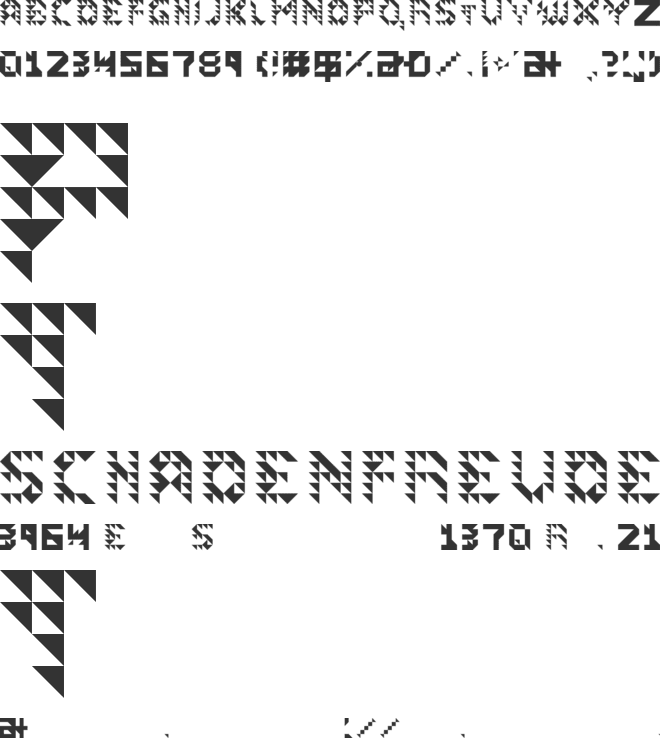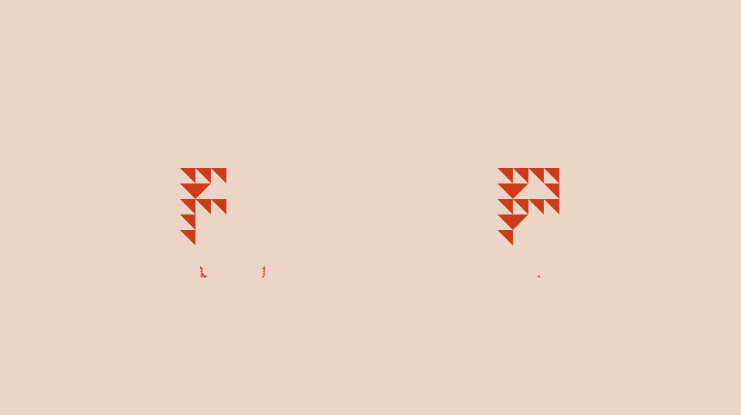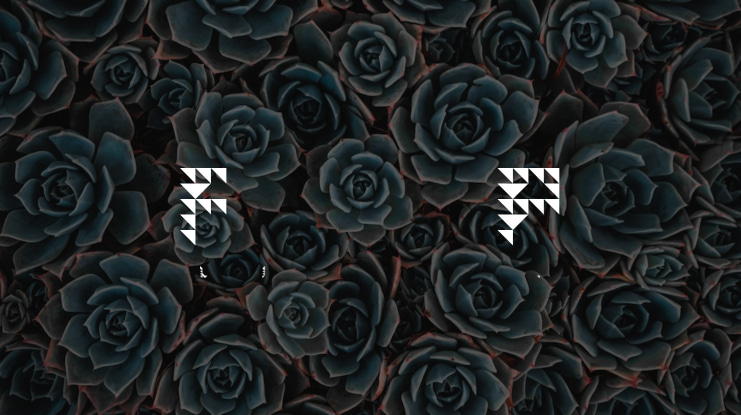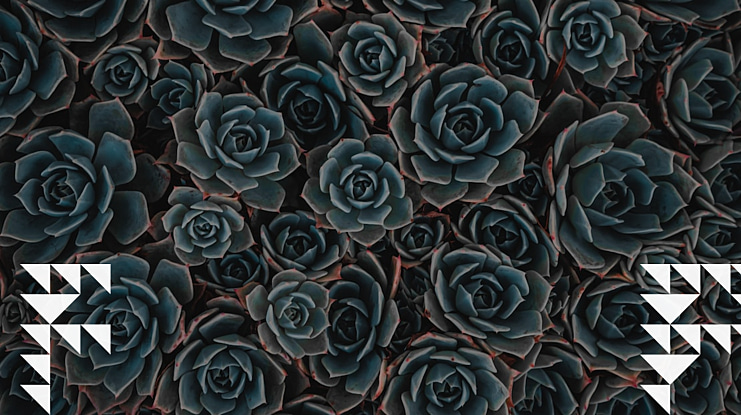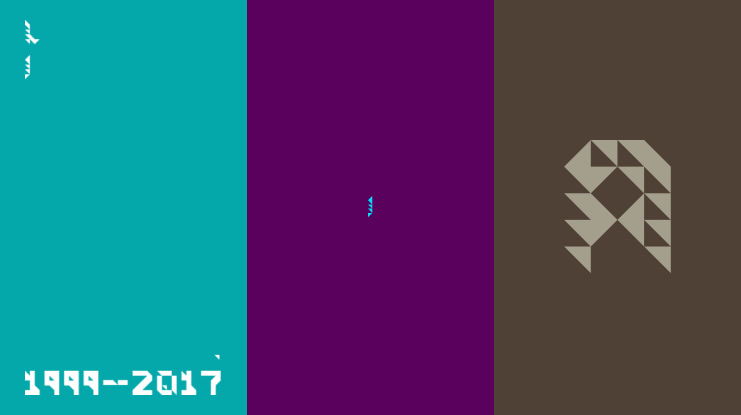
Fenn Pixel Font
Fenn Stonecutter (Formerly Fenn-Pixel) is a font created on Fontstruct and looks like text that was cut by a stonecutter after being carved out of wood (Well, all of them except the Z character, but that one’s intentional)